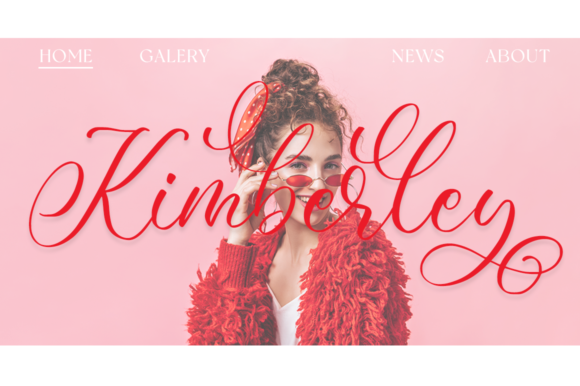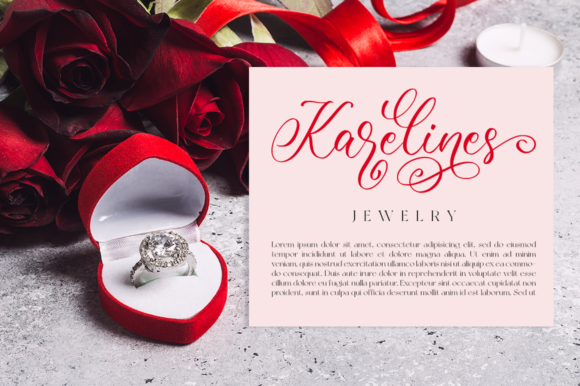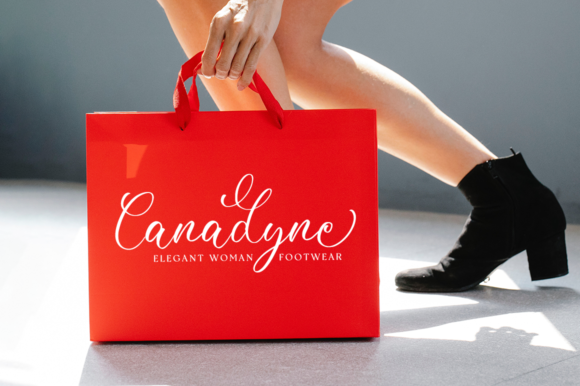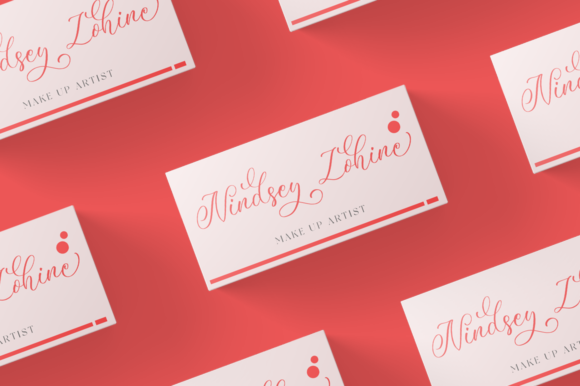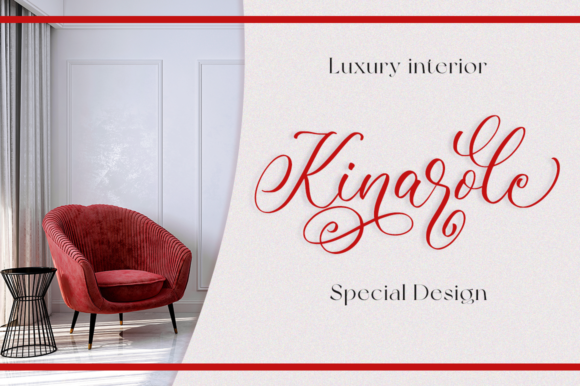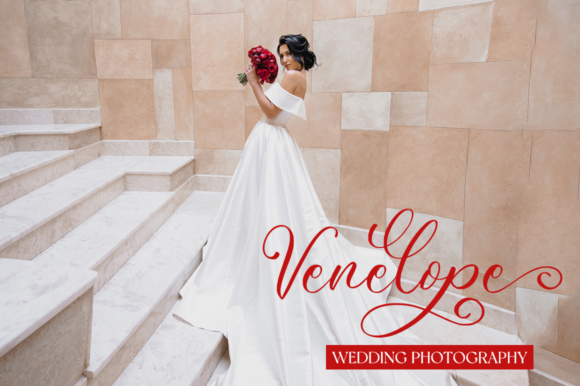
Introducing Amberlyne Font: Elevate Your Designs with Elegance and Sophistication
Are you a designer or crafter looking for a font that can add a touch of luxury to your projects? Look no further than Amberlyne Font, a beautiful and delicate handwritten font that is sure to make a stunning impact. With its unique feel and elegant appearance, Amberlyne is the perfect choice for anyone looking to elevate their designs and add a spark of sophistication.
What Makes Amberlyne Font So Special?
Amberlyne Font is a truly special font that offers a range of features that set it apart from other fonts. Here are just a few of the things that make Amberlyne so unique:
- Beautiful Handwritten Appearance: Amberlyne has a delicate, handwritten appearance that is both elegant and sophisticated. The font’s unique feel is perfect for adding a touch of luxury to any design project.
- PUA Encoded for Easy Access: Amberlyne is PUA (Private Use Area) encoded, which means that you can access all of the font’s amazing glyphs and ligatures with ease. This makes it simple to use the font in your designs and to create beautiful, professional-looking text.
- Stunning Impact: Whether you’re working on a branding project, a website design, or a craft project, Amberlyne is sure to make a stunning impact. The font’s elegant appearance and unique feel will help your designs stand out and leave a lasting impression.
Amberlyne Font is perfect for designers and crafters who are looking for a font that can add a touch of luxury to their projects. Whether you’re working on a commercial design project or a personal craft project, Amberlyne is sure to be a great choice. Here are just a few examples of the types of projects that Amberlyne is well-suited for:
- Branding and Logo Design: Amberlyne’s elegant appearance and unique feel make it a great choice for branding and logo design projects. The font’s luxury spark is sure to help your brand stand out and make a lasting impression.
- Website Design: Amberlyne is also a great choice for website design projects. The font’s delicate appearance and elegant feel make it perfect for use in headings, titles, and other design elements.
- Craft Projects: Whether you’re working on a craft project like scrapbooking, card making, or journaling, Amberlyne is a great choice. The font’s unique feel and elegant appearance make it perfect for adding a touch of luxury to your craft projects.
Tips for Using Amberlyne Font
Here are a few tips for using Amberlyne Font in your designs:
- Use it as a Headline Font: Amberlyne’s elegant appearance and unique feel make it perfect for use as a headline font. Use it to add a touch of luxury to your headings and titles.
- Pair it with Other Fonts: Amberlyne can be paired with a range of other fonts to create a unique and interesting design. Try pairing it with a sans-serif font for a modern look or with a script font for a more elegant appearance.
- Experiment with Different Sizes and Colors: Amberlyne looks great in a range of sizes and colors. Experiment with different sizes and colors to find the perfect look for your design.
Amberlyne Font is a beautiful and delicate handwritten font that is sure to add a touch of luxury to any design project. With its unique feel and elegant appearance, Amberlyne is the perfect choice for designers and crafters who are looking for a font that can make a stunning impact. Whether you’re working on a branding project, a website design, or a craft project, Amberlyne is sure to be a great choice.